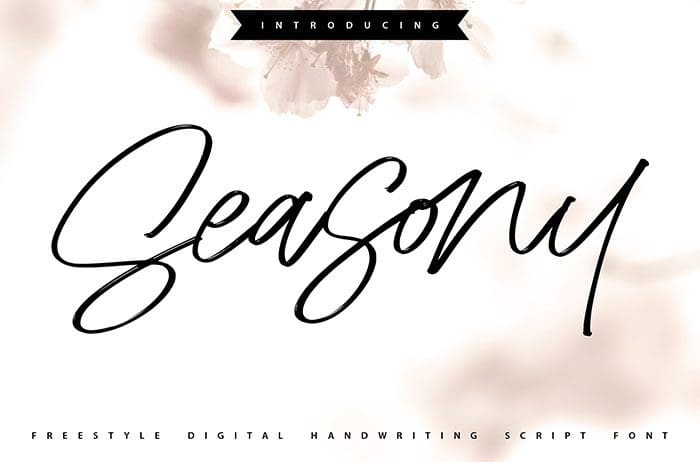
Seasony Free Script Font
Seasony is a lovely and timeless Script Font. It is the best choice for creating eye catching logos, branding and quotes. Thanks to Vunira Studio for sharing this font! Take a look at this portfolio for more of his stunning fonts.